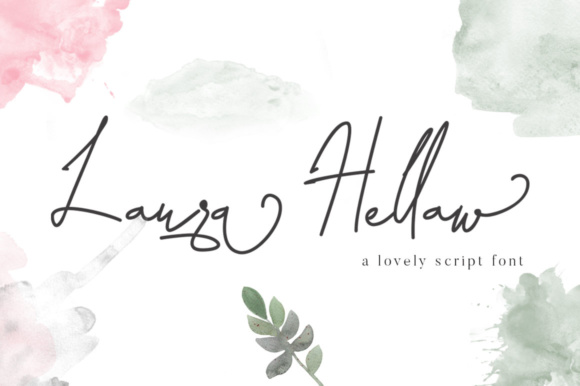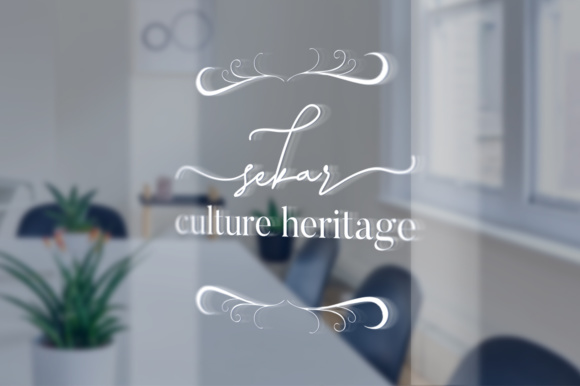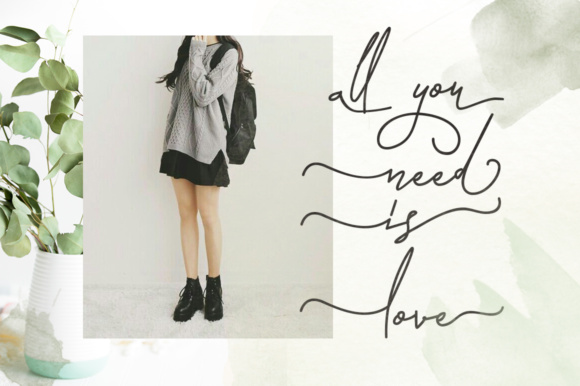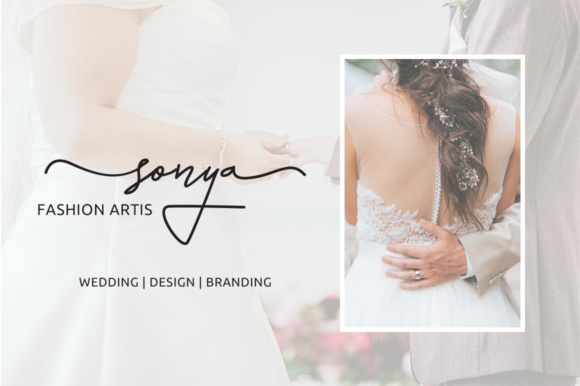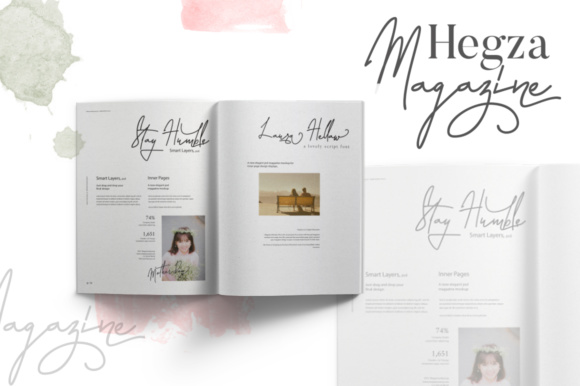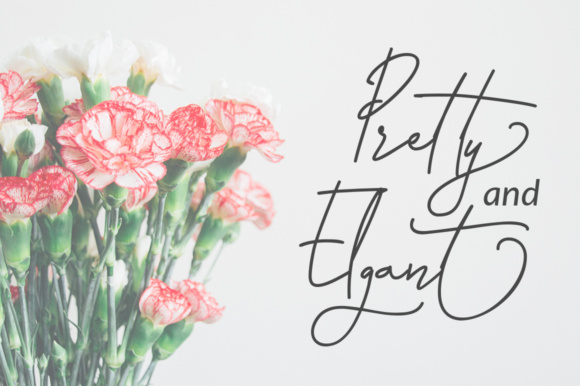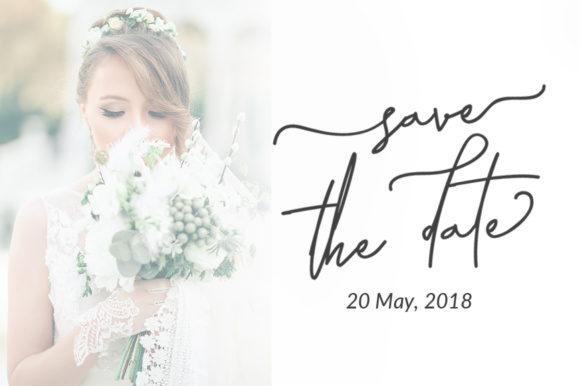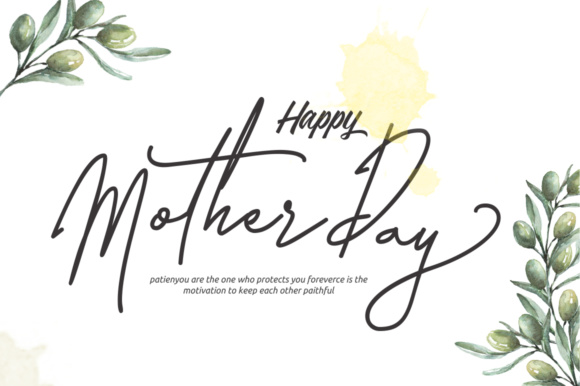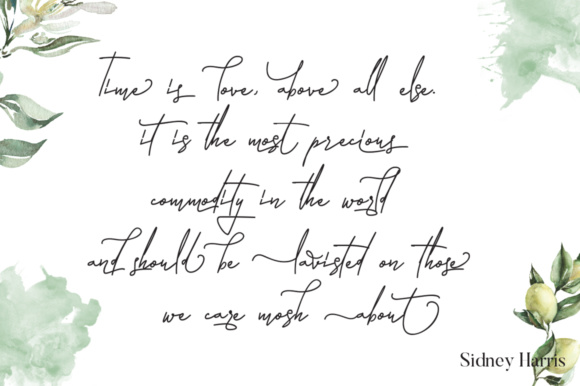
Laura Hellaw Font
About Laura Hellaw Font
Laura Hellaw is a lovely script font, perfect for a wide range of creative projects and special event designs. This monoline signature font is a great way to add some modernity and elegance to your designs.